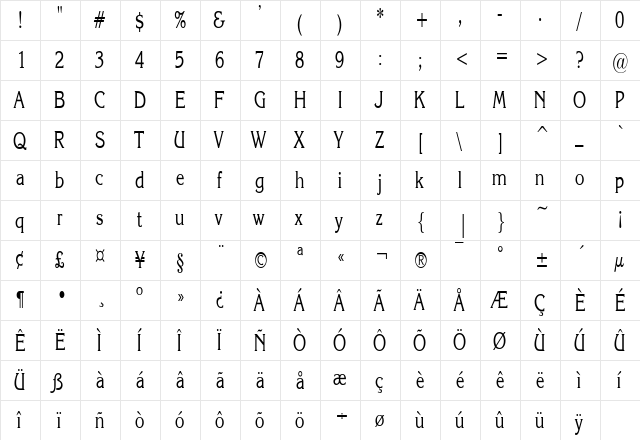
KatrinaCondensed Regular
Design Context for KatrinaCondensed Typeface
KatrinaCondensed is a composed and adaptable typeface that performs quietly and consistently across a wide range of design contexts. The condensed width makes it efficient for tight spaces without sacrificing legibility.